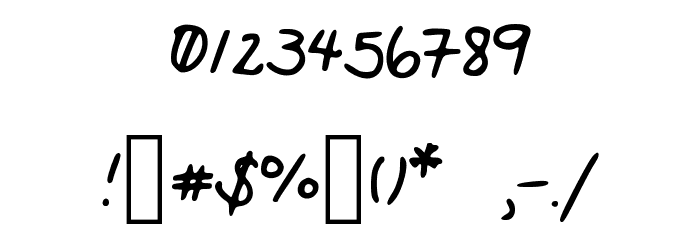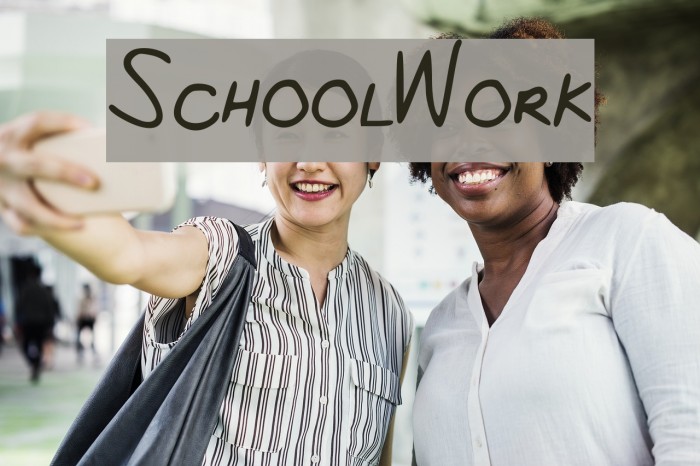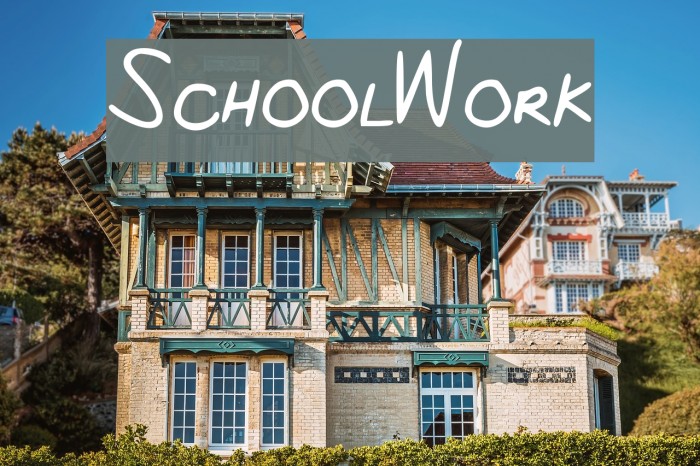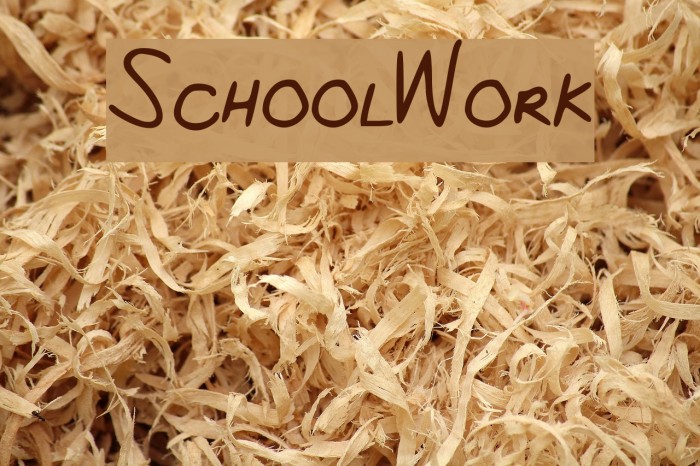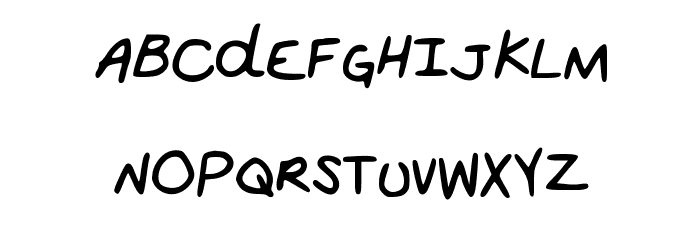
School_Work Font
This font exhibits a playful and informal handwritten style, characterized by its slightly slanted and casual letterforms. The uppercase and lowercase letters maintain a consistent flow, with rounded edges and a natural, organic feel. The numerals and special characters are designed to match the overall aesthetic, providing a cohesive appearance. The font's design is approachable and friendly, making it suitable for projects that require a personal touch. Its legibility is maintained across different sizes, ensuring versatility in various applications.
A playful, informal handwritten font with a casual and friendly style.
• Proposed Projects: Ideal for children's books, greeting cards, casual invitations, and educational materials.
• Category: Handwritten
• Overall Style: Casual
• Use Case: Headlines, Informal text, Educational materials